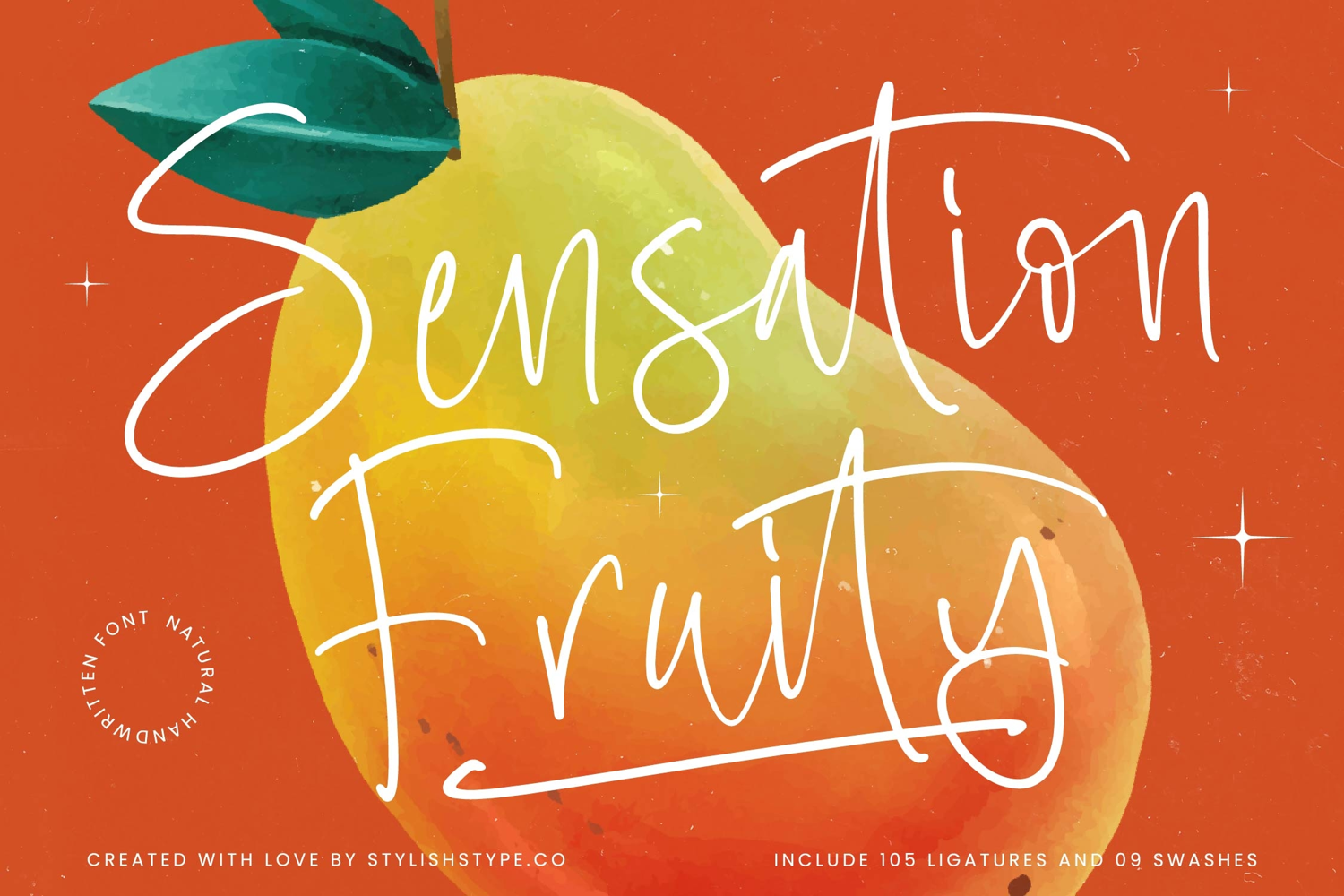
Sensation Fruity - Natural Handwritten Font
Sensation Fruity Italic
Sensation Fruity
Sensation Fruity - Natural Handwritten Font
Sensation Fruity is a natural handwritten font that blends casual charm with modern creativity. Its playful strokes, smooth ligatures, and fresh handwritten feel make it a perfect choice for designs that want to look authentic, approachable, and full of energy. With 105 ligatures and 9 swashes, this font provides flexibility for unique, expressive lettering that feels both stylish and fun.
In editorial and publishing, Sensation Fruity brings personality and vibrancy. Magazines, book covers, creative zines, and event flyers gain an expressive touch that makes text visually engaging. It is ideal for editorial layouts that aim to be bold, modern, and relatable, particularly for lifestyle and youth-focused markets.
For web typography, this font adapts seamlessly across blogs, websites, online stores, and social media posts. Its energetic strokes add character, ensuring that digital media projects communicate authenticity and creativity, making it a great fit for content creators and modern brands.
Sensation Fruity also thrives in advertising and marketing. From posters and product promotions to packaging and campaigns, its bold handwritten energy captures attention while keeping the design stylish and casual. It ensures advertising projects stay impactful, fresh, and visually attractive.
The font is well-suited for wedding and event stationery that embrace a relaxed or modern aesthetic. It adds charm to invitations, greeting cards, and signage, giving events a fun and approachable personality while keeping elegance intact.